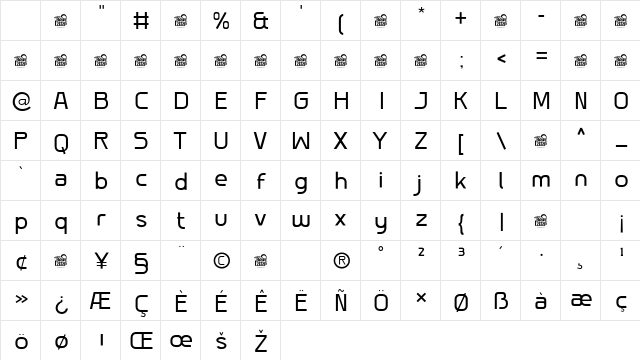
Toleis Thin is a composed and adaptable typeface that performs quietly and consistently across a wide range of design contexts. Its slender proportions lend an understated elegance to any composition.